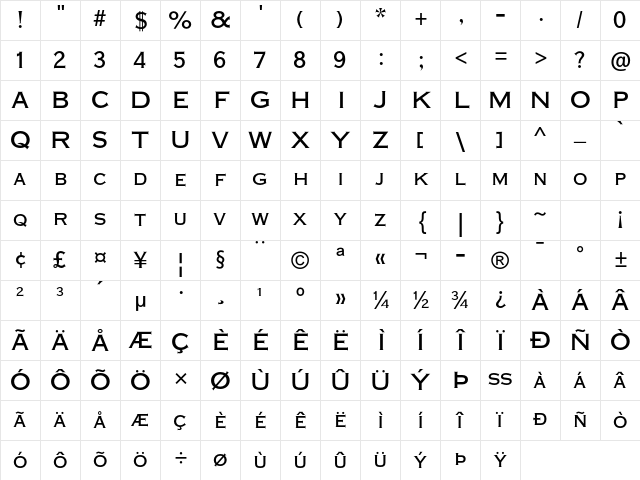
Plate Gt One Three MT Std Regular
Plate Gt One Three MT Std Family
Design Context for Plate Gt One Three MT Std
Plate Gt One Three MT Std is a composed and adaptable typeface that performs quietly and consistently across a wide range of design contexts.